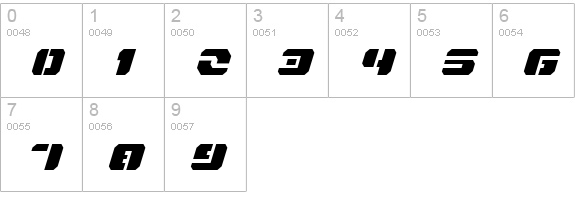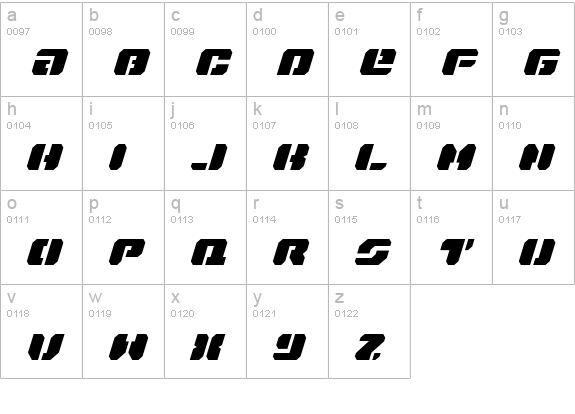
Dan Stargate Italic is a distinctive, italic variant in the Dan typeface family \xE2\x80\x94 well suited to design and typography projects.
Dan Stargate Italic font is a modern and sleek typeface that exudes a futuristic and sci-fi vibe. Its bold and italicized design adds a touch of sophistication to any project, making it perfect for titles, headings, and other prominent text. With its sharp angles and clean lines, this font is sure to make a statement and capture the attention of your audience. The best part is that Dan Stargate Italic font is completely free to download at FontsMarket.com. Whether you're working on a creative project, designing a website, or crafting marketing materials, this font is a versatile choice that will elevate your work to the next level. Don't miss out on the opportunity to enhance your designs with this eye-catching and dynamic font. Download Dan Stargate Italic today and let your creativity shine!